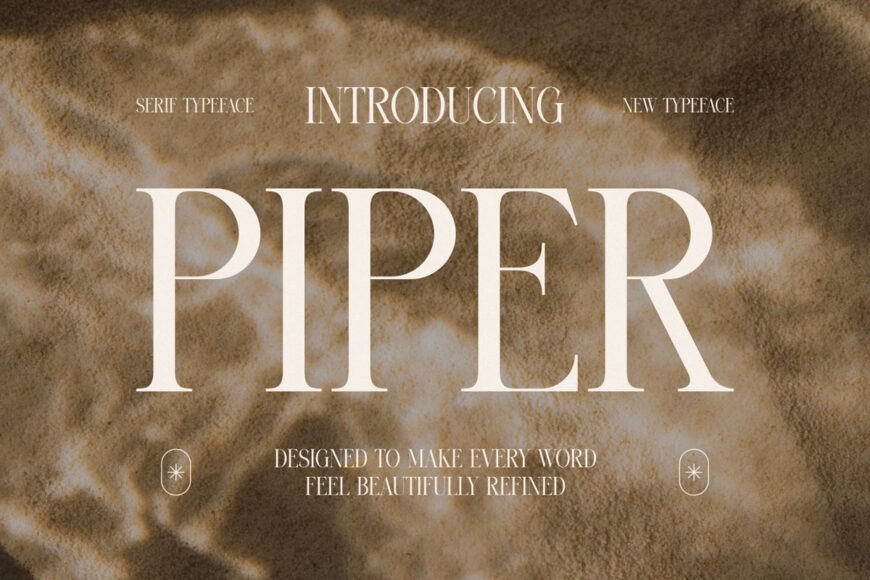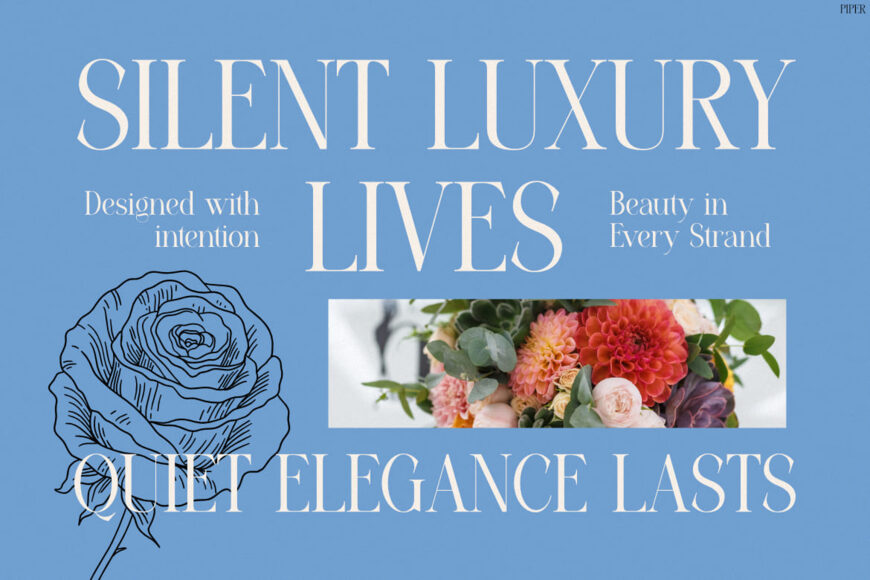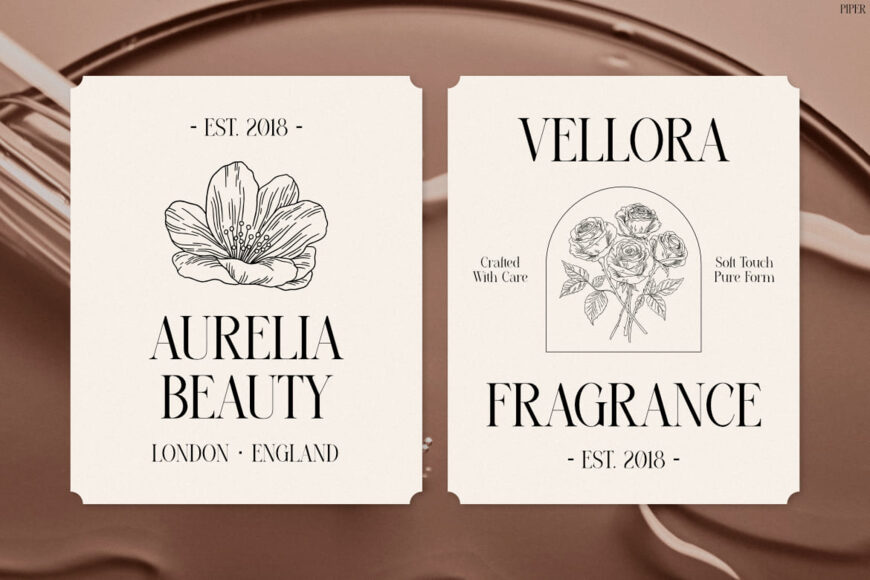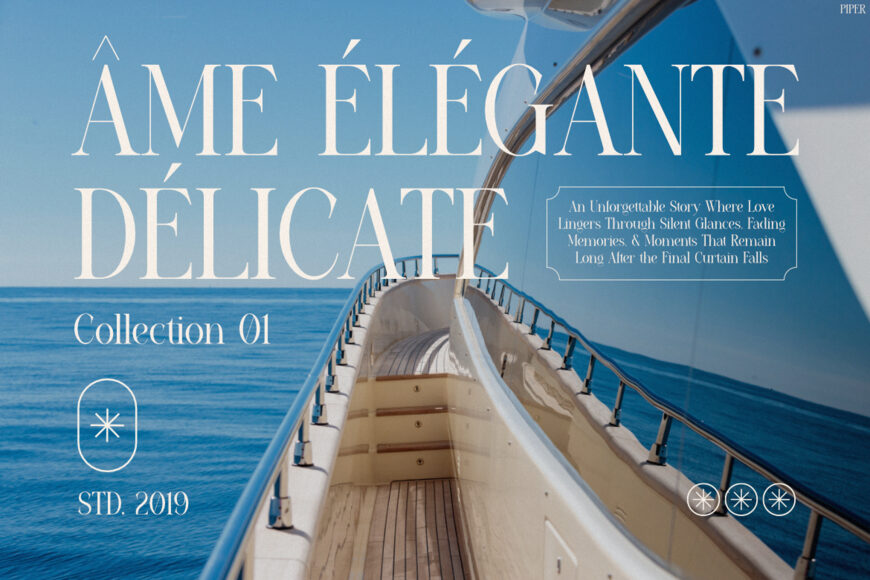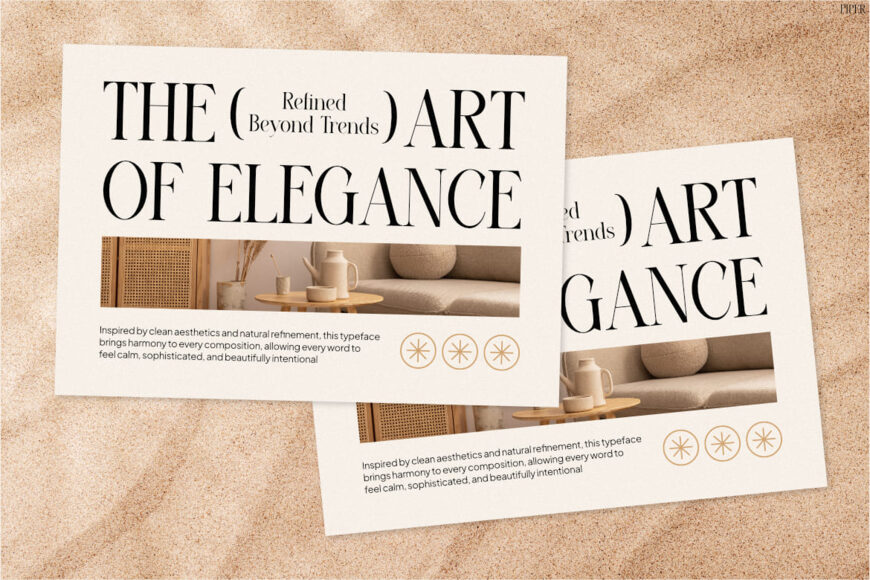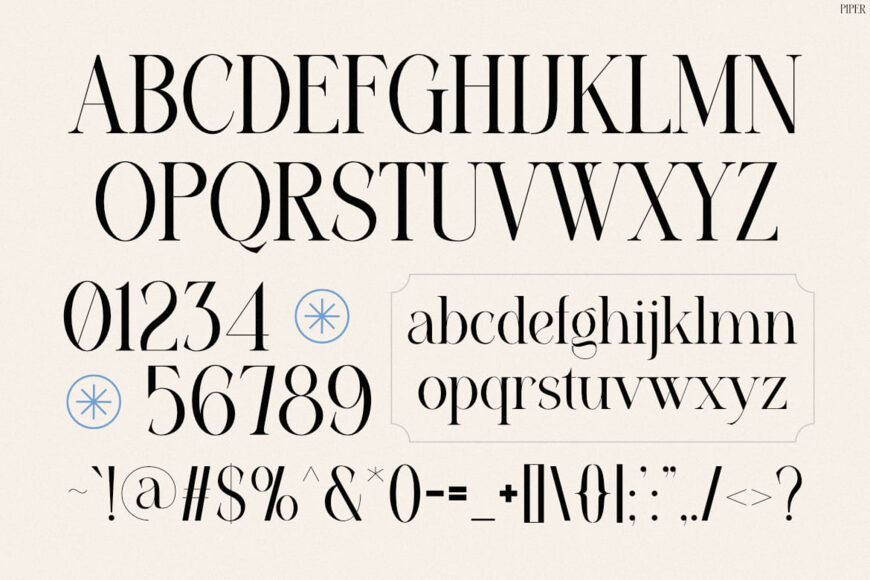
Piper is a sophisticated modern serif that blends graceful proportions with timeless elegance. Designed with high-contrast strokes, delicate curves, and refined letterforms, it creates a luxurious editorial look while maintaining exceptional readability.
Every character feels balanced and polished, making your typography look effortlessly premium. As a result, your branding, social feeds, and creative projects instantly gain a clean, elevated aesthetic that leaves a lasting impression.